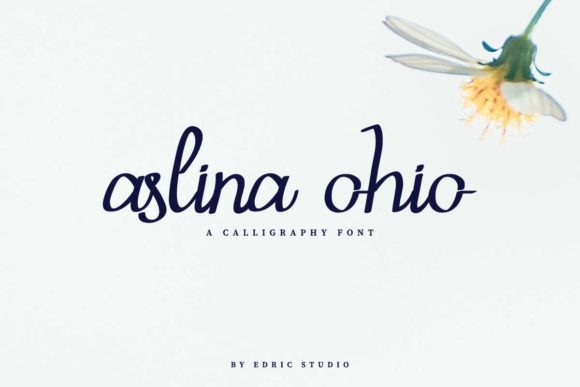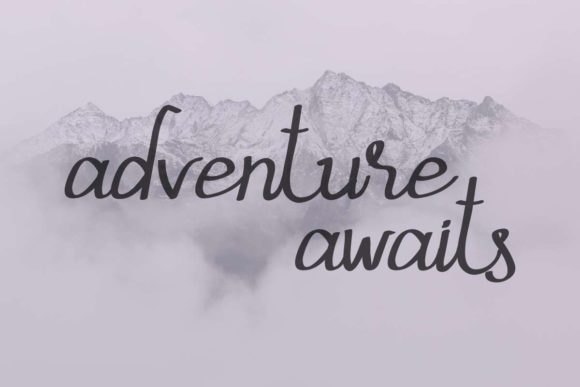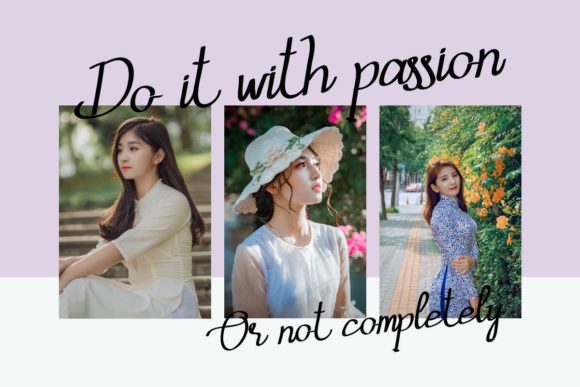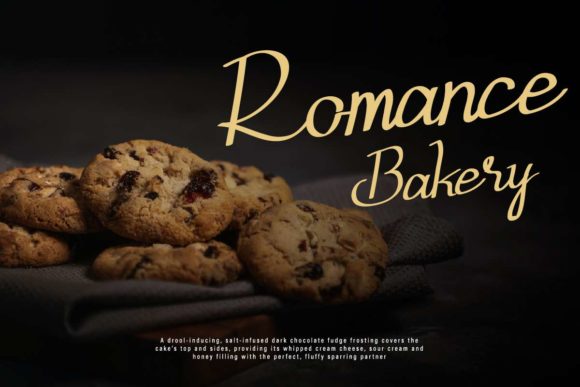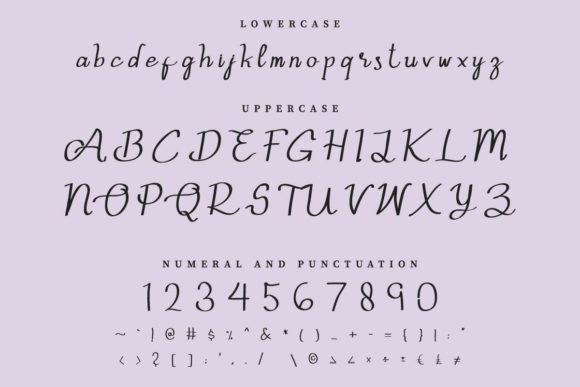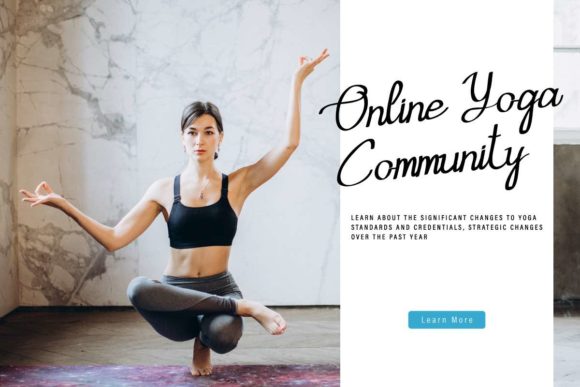
Discover the Elegance of Aslina Ohio Font: Elevate Your Designs with a Delicate Touch
Are you a designer or crafter looking for a font that can add a touch of elegance and sophistication to your creative projects? Look no further than the Aslina Ohio Font. This beautiful, handwritten font is designed to bring a delicate and flowing feel to your designs, making it perfect for a wide range of creative applications.
The Beauty of Aslina Ohio Font
Aslina Ohio Font is a delicate, elegant, and flowing handwritten font that is sure to capture your attention. Its beautiful and well-balanced characters make it a versatile font that can match a wide pool of designs. Whether you’re working on a branding project, a wedding invitation, or a craft project, Aslina Ohio Font is the perfect choice.
One of the standout features of Aslina Ohio Font is its elegant and refined aesthetic. The font’s delicate lines and curves create a sense of movement and fluidity, making it perfect for designs that require a touch of sophistication. The font’s well-balanced characters also ensure that your text is easy to read, making it perfect for body text or headings.
Why Choose Aslina Ohio Font?
So, why choose Aslina Ohio Font for your next design project? Here are just a few reasons why this font stands out:
- Elegant and Refined Aesthetic: Aslina Ohio Font has a beautiful, elegant, and refined aesthetic that is sure to elevate your designs.
- Versatile: The font’s well-balanced characters make it perfect for a wide range of designs, from branding and advertising to wedding invitations and craft projects.
- Easy to Read: The font’s clear and well-balanced characters ensure that your text is easy to read, making it perfect for body text or headings.
- Delicate and Flowing: Aslina Ohio Font has a delicate and flowing feel that is sure to add a touch of sophistication to your designs.
How to Use Aslina Ohio Font
Aslina Ohio Font is perfect for a wide range of design applications, including:
- Branding and Advertising: Use Aslina Ohio Font to create elegant and sophisticated branding materials, such as logos, business cards, and brochures.
- Wedding Invitations: Add a touch of elegance to your wedding invitations with Aslina Ohio Font.
- Craft Projects: Use Aslina Ohio Font to add a delicate and flowing touch to your craft projects, such as scrapbooking, card making, and journaling.
- Digital Designs: Use Aslina Ohio Font in your digital designs, such as social media graphics, blog posts, and website headers.
Tips for Getting the Most Out of Aslina Ohio Font
Here are a few tips for getting the most out of Aslina Ohio Font:
- Pair with Bold Fonts: Pair Aslina Ohio Font with bold fonts to create a striking contrast and add visual interest to your designs.
- Use in Combination with Images: Use Aslina Ohio Font in combination with images to add a touch of elegance and sophistication to your designs.
In conclusion, Aslina Ohio Font is a beautiful and elegant handwritten font that is sure to elevate your designs. Its delicate and flowing feel, combined with its well-balanced characters, make it perfect for a wide range of creative applications. Whether you’re a designer or crafter, Aslina Ohio Font is a must-have font that is sure to add a touch of sophistication and elegance to your designs. So why wait? Add Aslina Ohio Font to your font collection today and start creating beautiful and elegant designs!